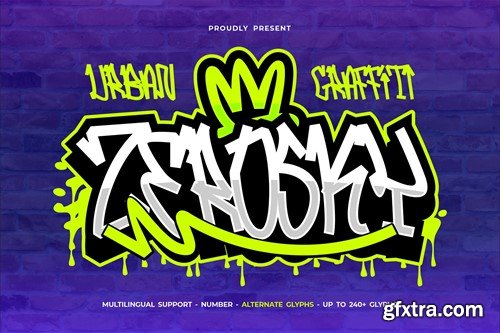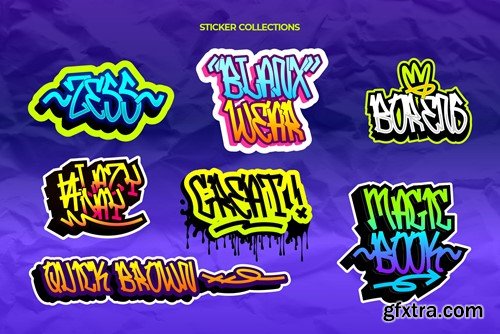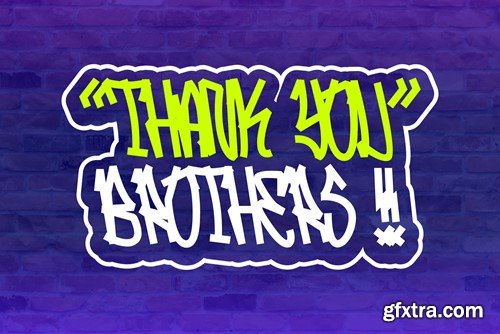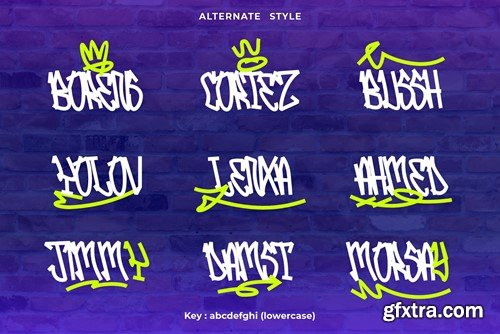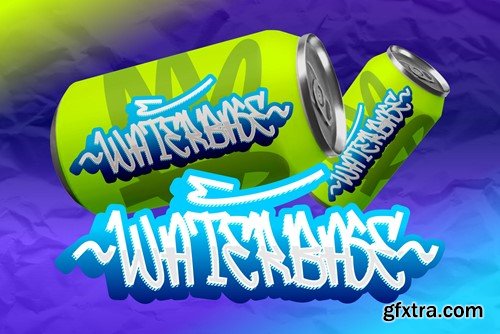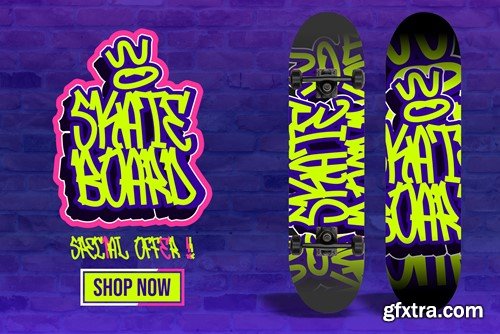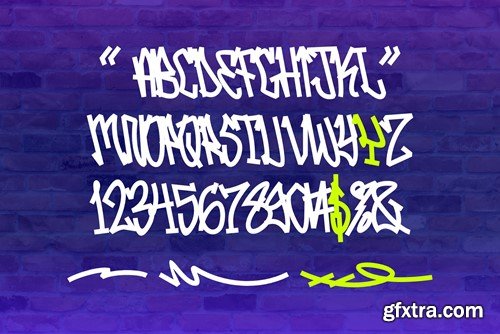
zerosky - 城市涂鸦字体 kdwz4w9
Zerosky is a dynamic and electrifying urban graffiti font that pulsates with the spirit of the streets. Its bold, sharp-edged lettering captures the essence of underground art, making it the ideal choice for projects that require an intense, rebellious, and edgy urban style. Whether it's for posters, street art, or designs that demand a strong and contemporary aesthetic, Zerosky injects an energetic, urban vibe into your typography, setting your text on fire with urban flair. File Included: Features: That's it! If you have any questions don't hesitate to ask! Stay Classy!